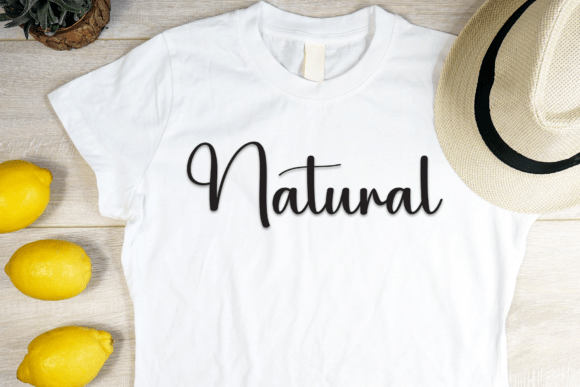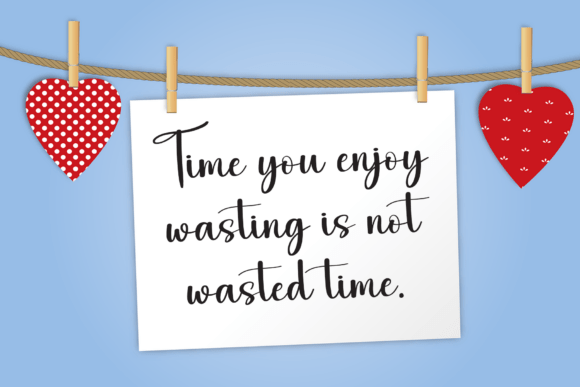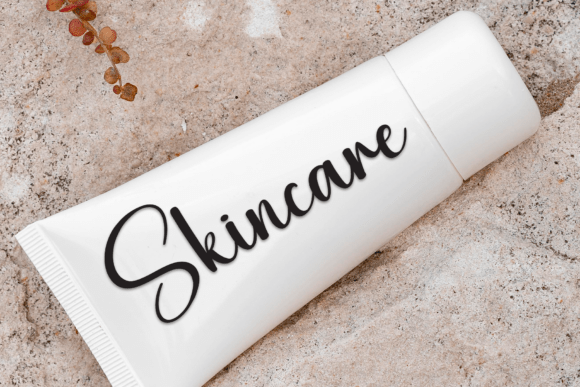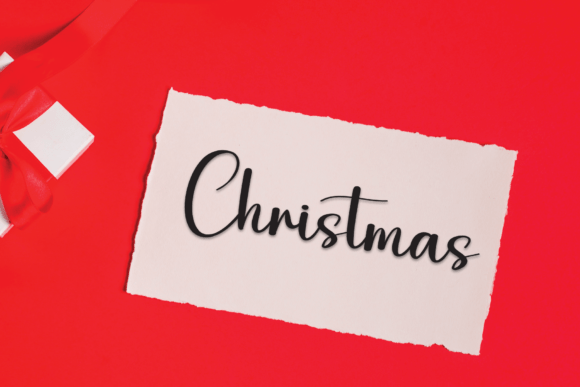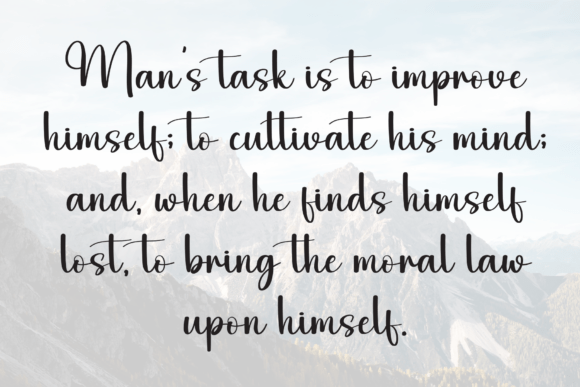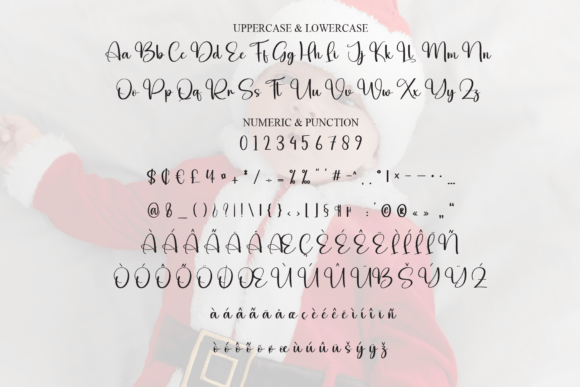
The Magic of Handwritten Lettering: Introducing Babysanta Font
Have you ever found yourself scribbling in a notebook, lost in a world of creativity, and suddenly, a beautiful handwritten phrase appears? That’s the magic of handwritten lettering, and it’s exactly what inspired the creation of Babysanta Font. This stylish script font is designed to capture the essence of hand-painted calligraphy with a modern twist, making it perfect for designers who crave a unique and sophisticated touch.
Babysanta Font is more than just a font – it’s a tool for creative expression. With its fluid brush strokes, dynamic curves, and expressive letterforms, it adds a creative and elegant feel to any design. Whether you’re creating logos, invitations, packaging, or social media graphics, Babysanta Font delivers both visual impact and versatility. Its natural flow and vibrant character make it a valuable asset for designers looking to elevate their work.
Babysanta Font Key Features
- Font Family: Babysanta Font is a unique, custom-designed font, perfect for adding a touch of whimsy and playfulness to your designs.
- Unique Characteristics: The font features a playful, hand-drawn style with intricate details and ornaments, making it ideal for children’s book illustrations, greeting cards, and other creative projects.
- Character Set: The font includes a wide range of characters, including uppercase and lowercase letters, numbers, punctuation marks, and special characters.
Babysanta Font Review
Overall, I found Babysanta Font to be an interesting and unique choice for projects that need a playful, festive vibe. ✨ Its whimsical feel is reminiscent of Christmas decorations, making it perfect for holiday-themed designs.
- Works well in headings and titles, adding a touch of personality to your design.
- Good for creating a sense of nostalgia and wonder, especially in children’s content.
- Customizable options allow for some flexibility in terms of size and color.
- Lack of flexibility in terms of style and customization options beyond the basic size and color adjustments.
- The font may be too playful for more formal or professional projects.
- The unique feel may not appeal to everyone, and some users may find it too childish.
Overall, I would recommend Babysanta Font for projects that require a lighthearted, festive atmosphere. It’s a great choice for holiday-themed designs, children’s content, or any project that needs a touch of whimsy. However, it may not be the best fit for more formal or professional projects.
To get the most out of the Babysanta Font, use it in conjunction with other festive elements, such as holly or snowflakes. Experiment with different font sizes and colors to create a unique and eye-catching design.
The Babysanta Font is ideal for creating festive holiday designs, such as:
1. Christmas cards and invitations.
2. Holiday menus and party decorations.
3. Social media graphics and advertisements.